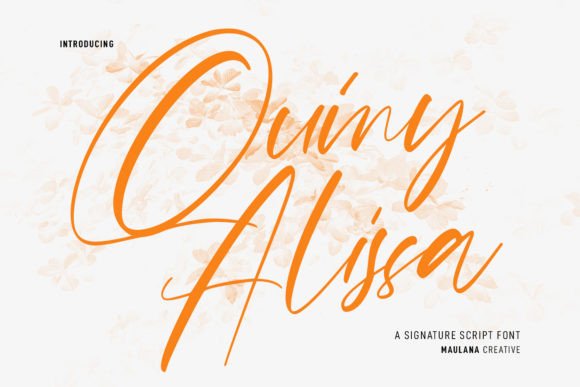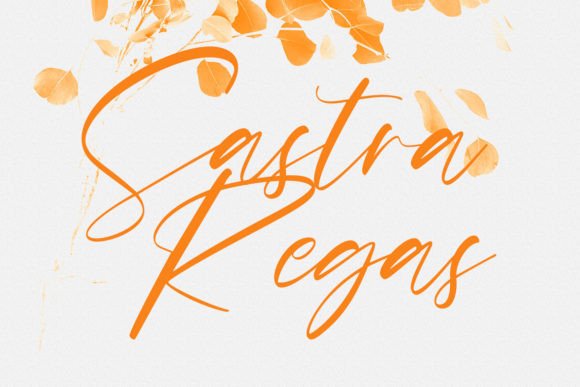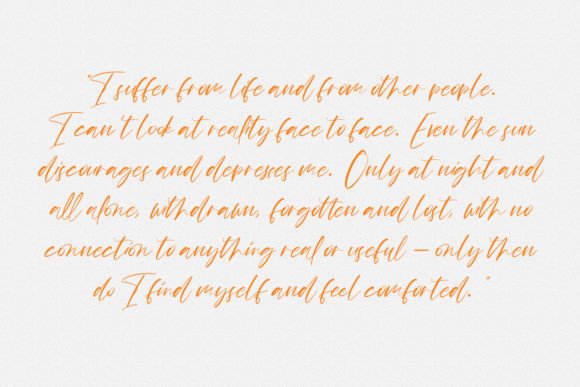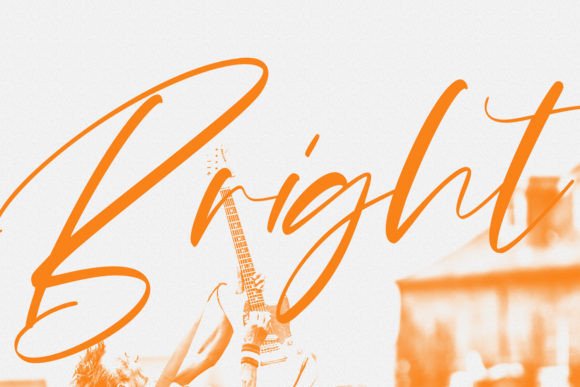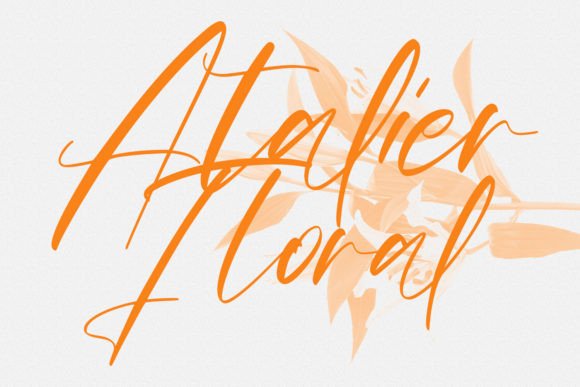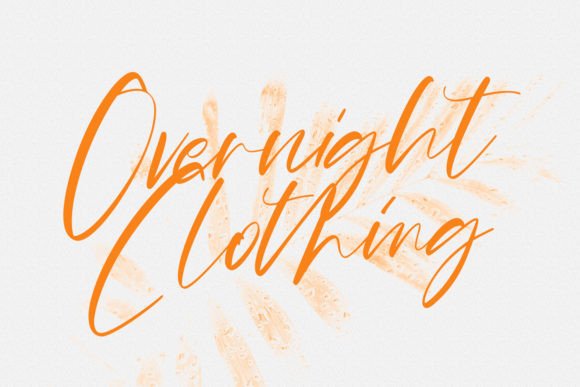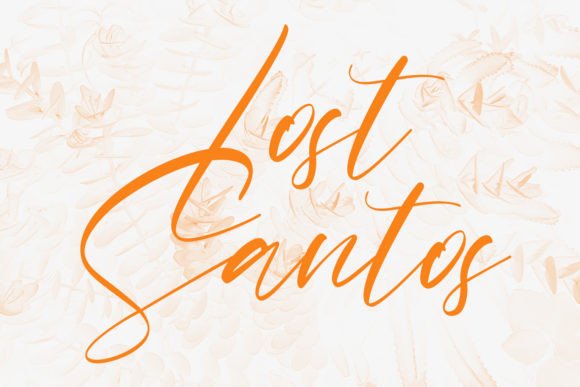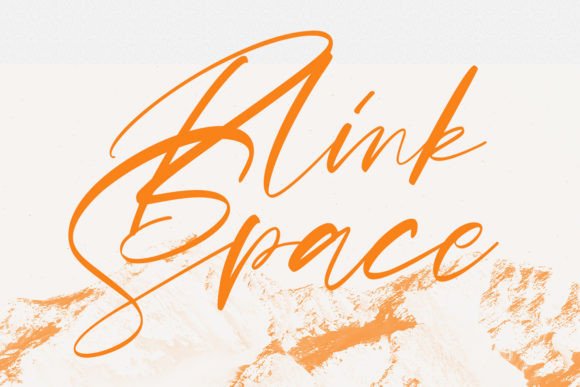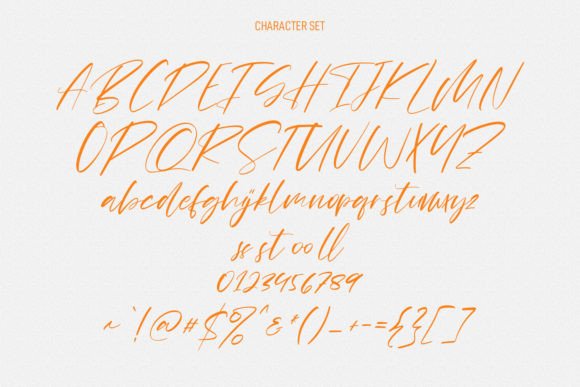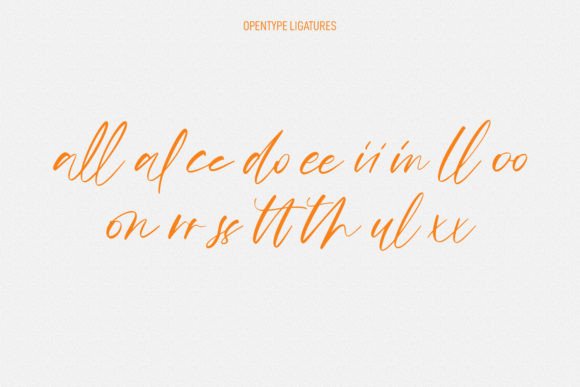
Quiny Alissa Font
About Quiny Alissa Font
Quiny Alissa is an exquisite and expressive script font that exudes elegance and sophistication. With its classy, elegant, and modern appearance, this font is a versatile choice for a wide array of design applications, including logos, branding, invitations, stationery, wedding designs, social media posts, and beyond. Its refined aesthetic makes Quiny Alissa an ideal option for those seeking a font that seamlessly blends timeless elegance with contemporary style.
The elegance of Quiny Alissa is evident in its gracefully crafted script, which adds a touch of sophistication to your designs. Whether you’re creating a logo that demands a refined identity or working on wedding designs that call for a blend of elegance and modernity, Quiny Alissa rises to the occasion with its stylish and expressive letterforms.
In branding and logos, Quiny Alissa helps convey a sense of professionalism and upscale sophistication. Its modern look ensures that your brand image is not only timeless but also aligned with current design trends.
For invitations, stationery, and wedding designs, Quiny Alissa contributes to a refined and luxurious aesthetic. The font’s expressive script adds a personalized and elegant touch, making it suitable for special occasions and formal events.
In social media posts and other digital applications, Quiny Alissa’s elegance shines through, enhancing the visual appeal of your content. Its versatility ensures that it can be seamlessly integrated into various design contexts, allowing you to maintain a consistent and sophisticated look across different platforms.
In summary, Quiny Alissa is more than just a font; it’s a design asset that brings elegance and expression to your creative projects. Whether you’re working on branding, invitations, or social media graphics, Quiny Alissa adds a touch of class and modernity that elevates your designs to a level of refined sophistication.